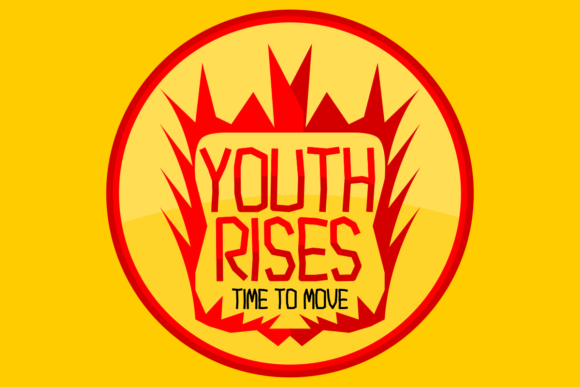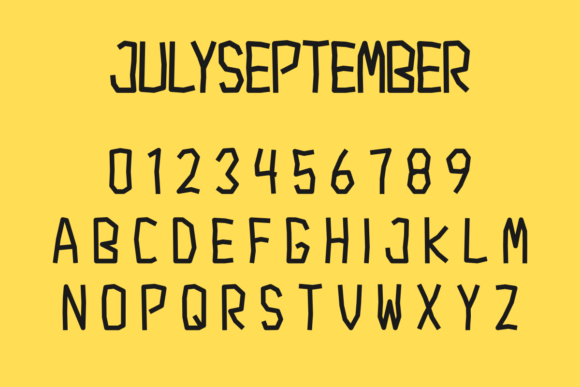
Introduction to Julyseptember Font
As a designer, there’s nothing quite like the thrill of bringing a creative project to life. The blank page stares back at you, a canvas waiting for your imagination to run wild. It’s in these moments that the right design resource can make all the difference. For those who crave a font that’s not only visually stunning but also easy to read, the Julyseptember Font is a game-changer.
With its light and airy characters, this font is perfect for designers who want to elevate their work without sacrificing readability. Whether you’re working on a website, a mobile app, or a print project, the Julyseptember Font is a high-quality choice that will help your design shine. And the best part? It’s available for free download, making it a valuable addition to any designer’s toolkit.
Key Features of Julyseptember Font
- Resolution: Optimized for high-resolution displays, ensuring crisp and clear typography
- Unique, modern design aesthetic, perfect for adding a touch of sophistication to any creative project
Honest Review: Julyseptember Font
I recently stumbled upon the Julyseptember Font while searching for a high-quality font to use in my creative project. I was excited to give it a try, and I’m happy to share my honest review with you.
- ✨ Unique and modern design aesthetic that sets it apart from other fonts.
- ✨ High quality, clear and crisp font that’s perfect for both digital and print use.
- ⚠️ Limited font weights and styles, which may not be ideal for designers who need a wide range of options.
- ⚠️ Not ideal for use in small text sizes, as the font may become difficult to read.
Overall, I’m impressed with the Julyseptember Font. While it may not be perfect, it’s a great addition to any designer’s toolkit. I’d recommend it for designers who want a modern, high-quality font for their creative project.
Tips for Getting the Most Out of Julyseptember Font
For the best results, use the Julyseptember Font with a transparent background to create a clean and minimalist design. You can also experiment with different font sizes and colors to add visual interest to your design. Additionally, consider pairing the Julyseptember Font with other design resources to create a unique and creative project.
The Julyseptember Font is a popular design resource for a variety of creative projects, including branding, marketing materials, and digital graphics. Its high-quality design and transparent background make it an ideal choice for designers who want to create professional-looking designs quickly and easily.